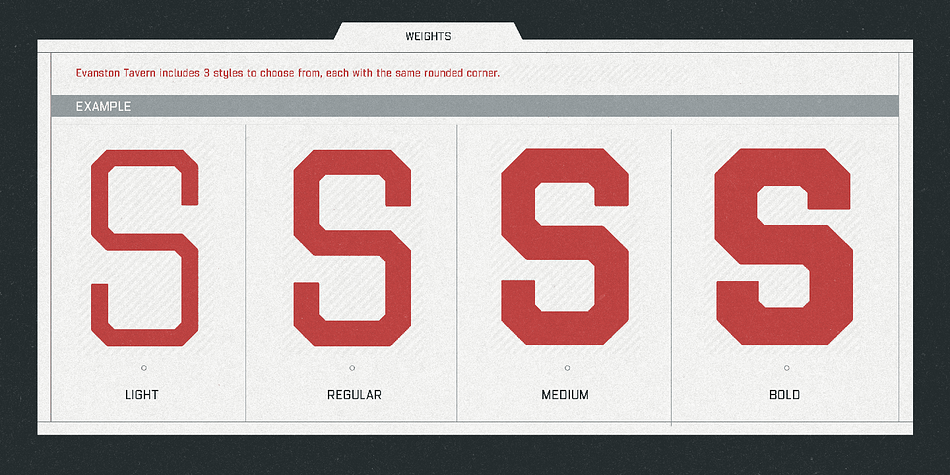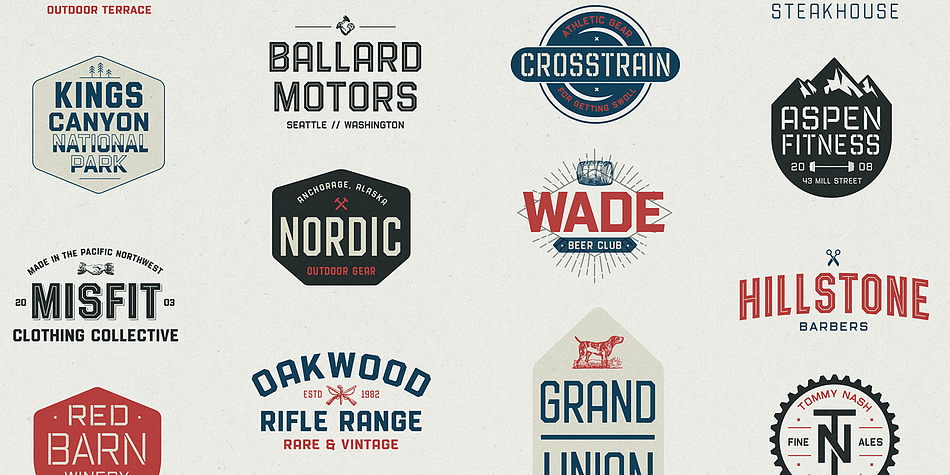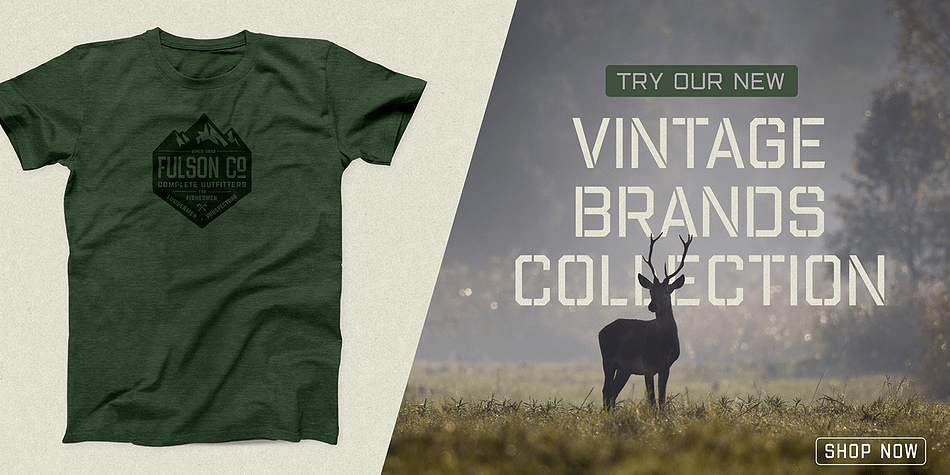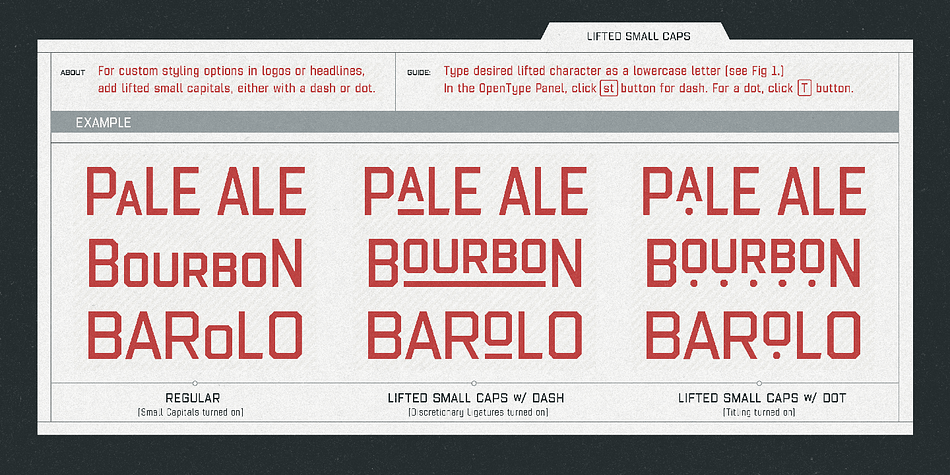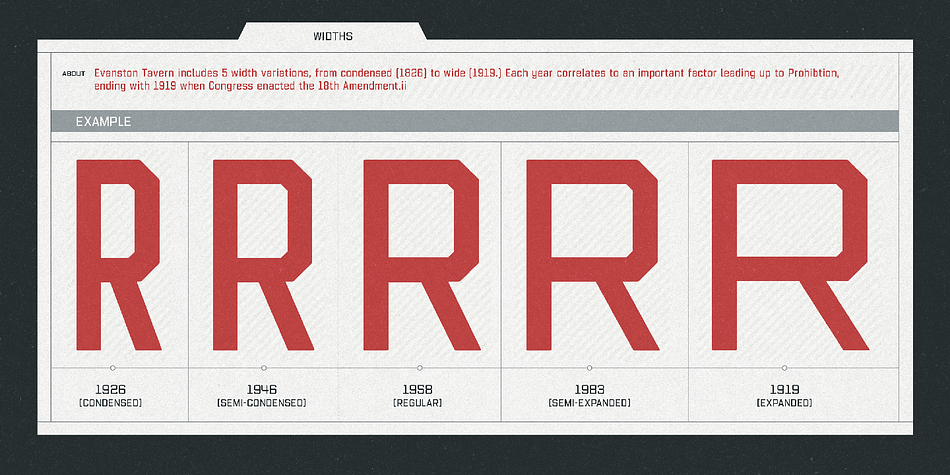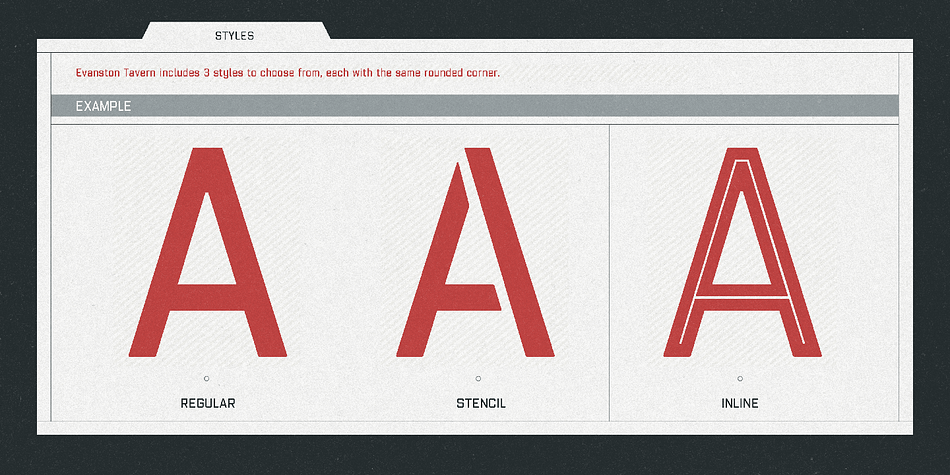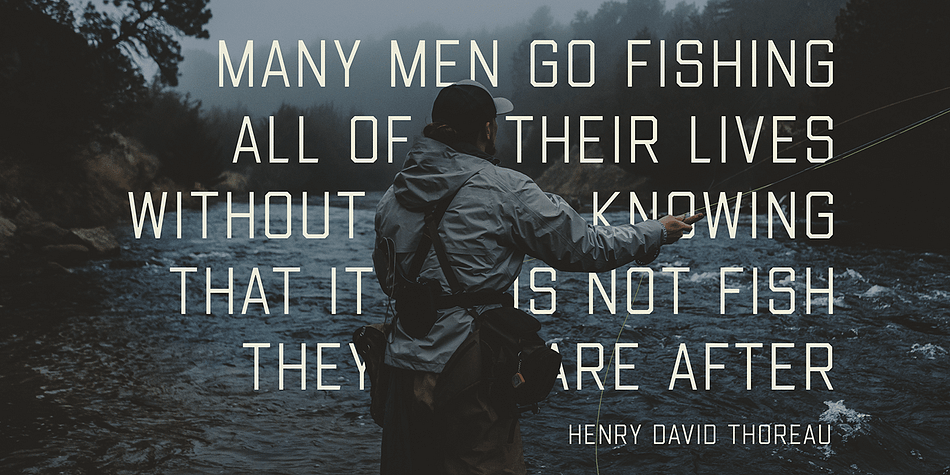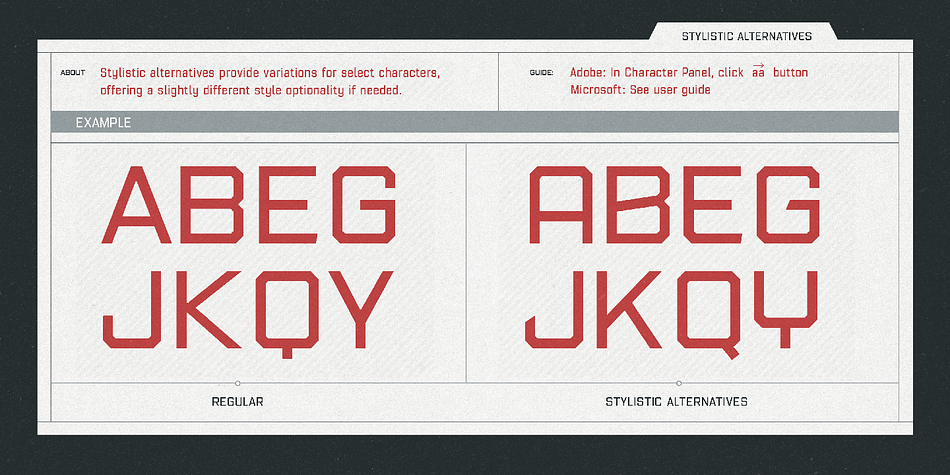
Designed by Kimmy Kirkwood, Evanston Tavern is a multiple classification font family. This typeface has sixty-one styles and was published by Kimmy Design.
Evanston Tavern is a square typeface and the sans-serif version to Evanston Alehouse. Inspired by the years that prefaced the ratification of the American Prohibition, this typeface mimics the signage commonly seen outside of saloons, taverns and alehouses during that time.
Back to the modern era, Evanston Tavern is more than just a vintage inspired typeface. It works in modern and futuristic settings with multiple styles, opentype alternatives and ornamentation. The family provides a robust 61 total fonts, within it’s 3 styles of regular, stencil and inline. Each sub family includes 4 weights and 5 widths. It has special features that add depth to the typeface, with discretionary ligatures and stylistic alternatives. It also includes a complimentary set of ornaments, including a vintage graphic set from the era, as well as modern frames, borders and icons.
This typeface works great at logos, packaging, and other display settings.
Pair this font with Evanston Alehouse and have a great combination of serif and sans-serif square letterforms and a large array of ornaments!
- 3 Styles: Regular, Stencil and Inline
- 4 Weights: Light, Regular, Medium and Black
- 5 Widths: 1826 (condensed), 1846 ( narrow) 1858 (regular), 1893 (wide) and 1919 (expanded)
- 2 capital Heights: Capitals and small caps
- 2 Alternatives: Discretionary Ligatures and Stylistic Alternatives
- 1 Ornaments font with over 100 graphic extras